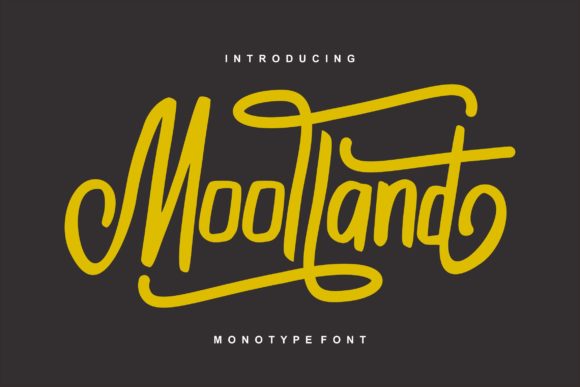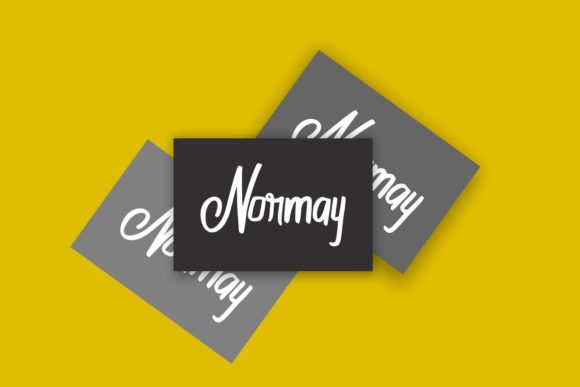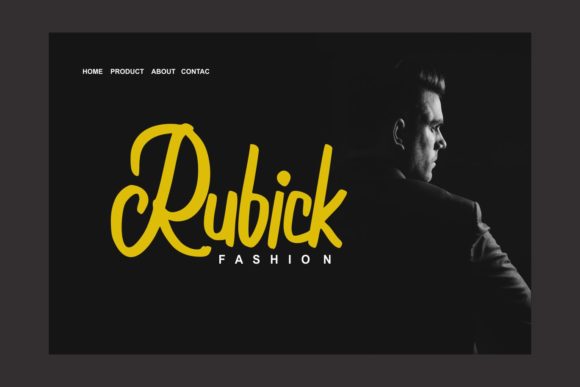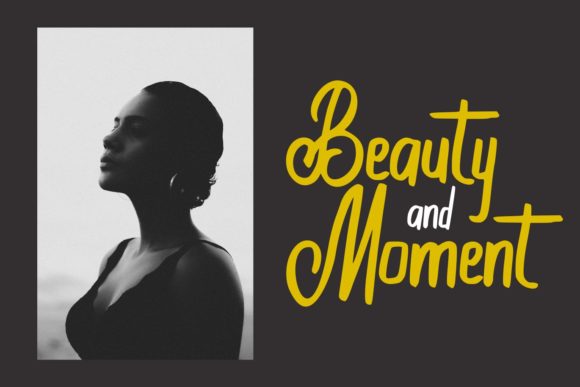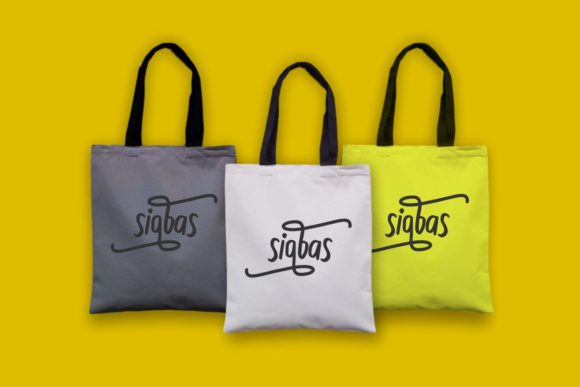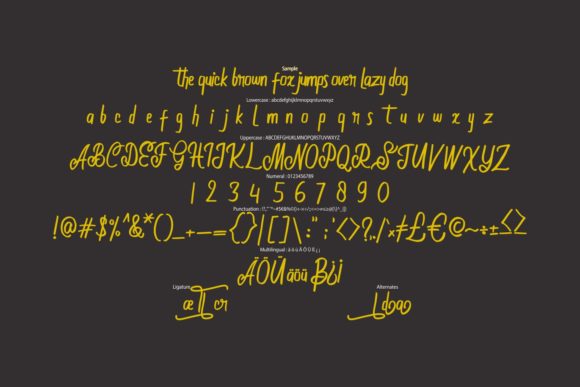
Moolland Font
About Moolland Font
Moolland with its unique calligraphic style, is so beautiful on greeting cards, branding materials, business cards, quotes, posters, and much more!